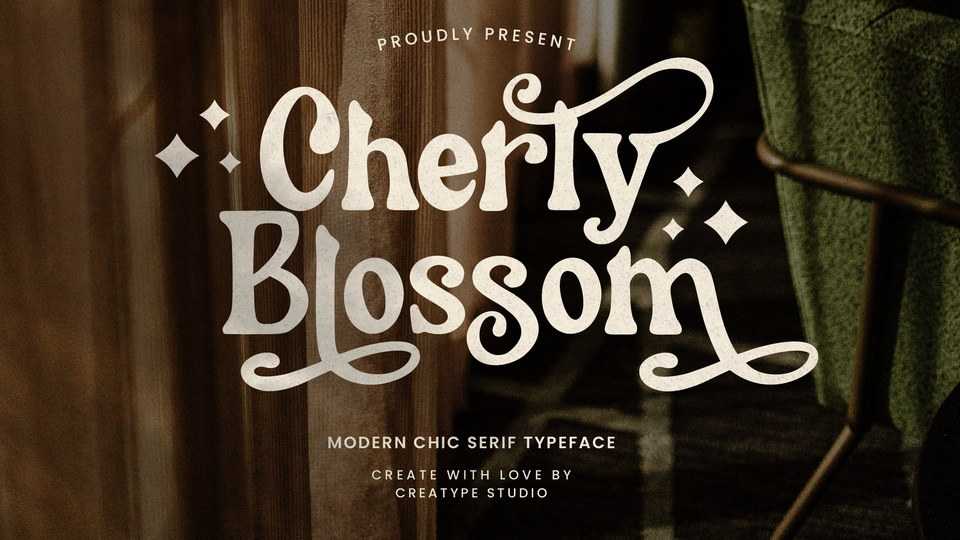
Download Cherly Blossom font, a modern chic serif typeface with retro aesthetic and elegant look. Cherly Blossom is perfect for projects that need decorative handwriting taste.